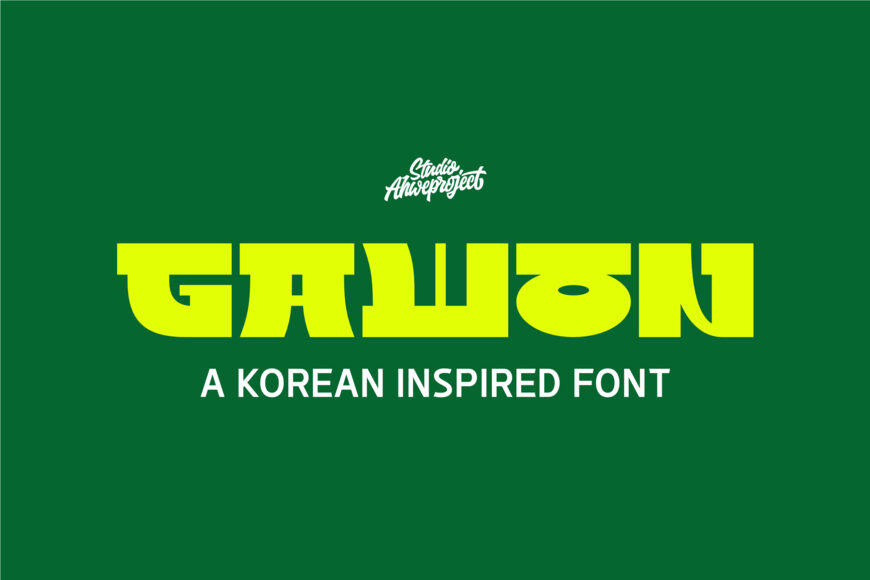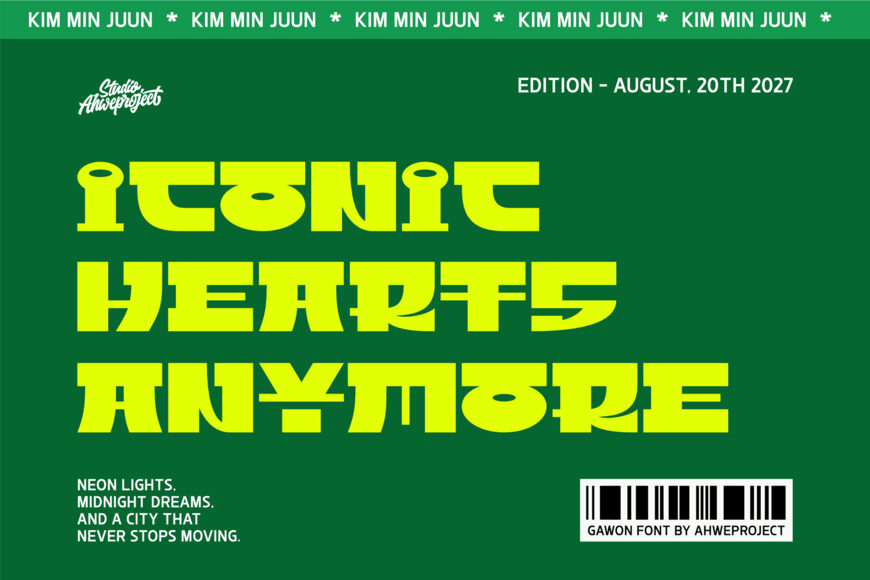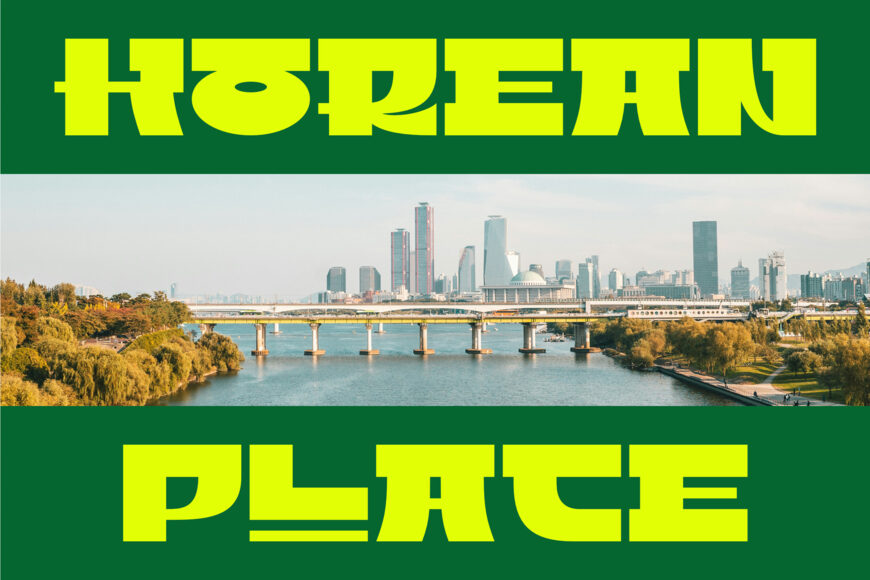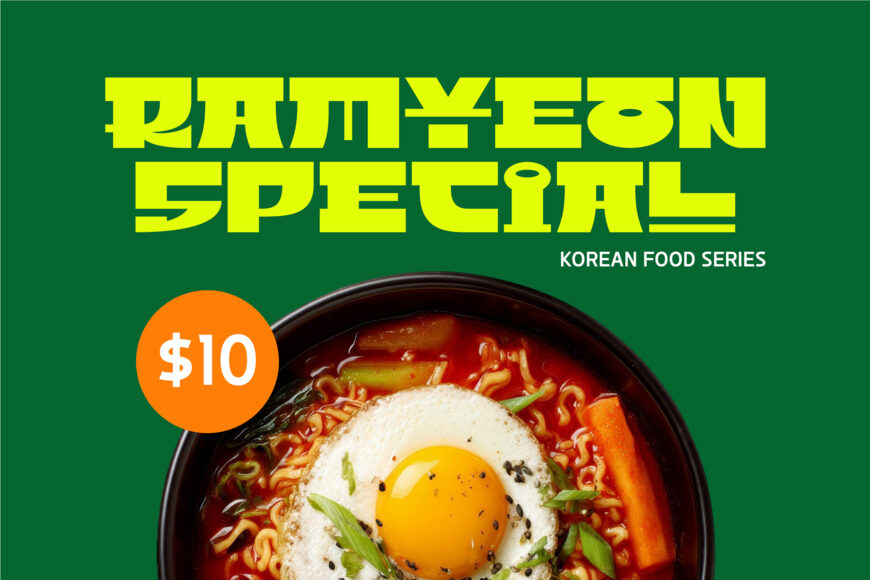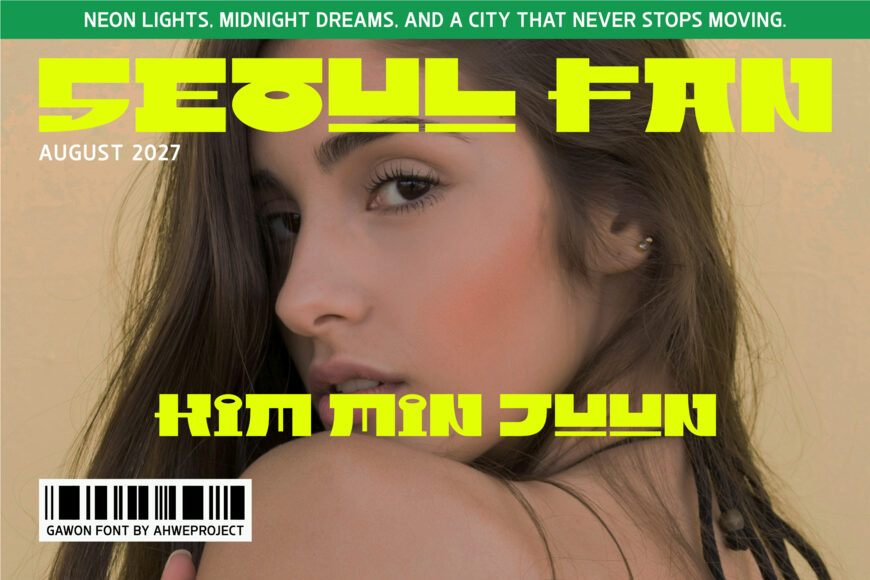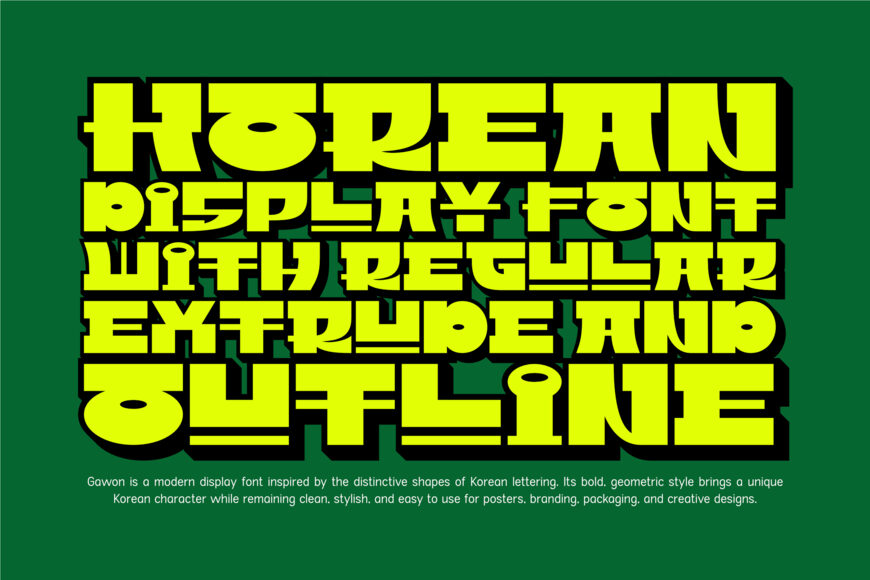
Gawon is a bold Korean-inspired display font that brings the distinctive visual character of Hangul into a modern Latin typeface. Built with strong geometric shapes, chunky proportions, and unconventional letterforms, Gawon creates an instantly recognizable look while remaining readable and versatile for contemporary design.
Its unique structure gives every word a strong visual presence, making Gawon especially effective for designs that need to feel modern, playful, cultural, and eye-catching. Gawon works best as a display and headline font. Its bold personality makes it ideal for posters, food packaging, restaurant branding, Korean-inspired products, album covers, music graphics, fashion designs, streetwear, logos, and more.